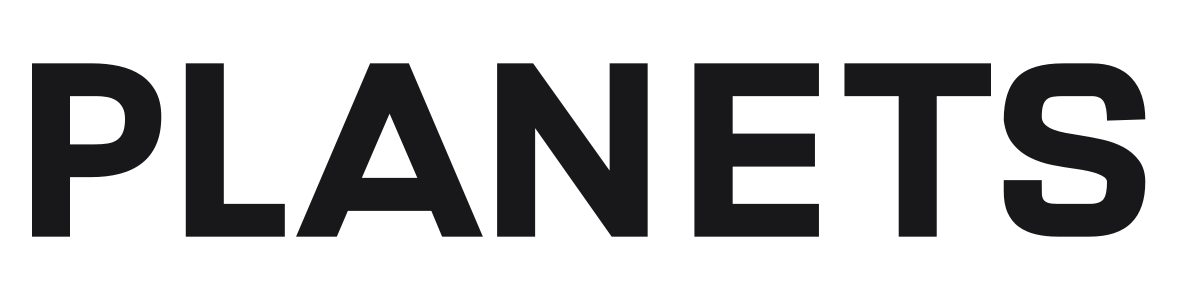
Planets
Planets is a bold grotesque sans-serif with heavy weight and wide, even proportions. Its near-monoweight strokes and squared curves give it a confident, no-nonsense presence that holds up well at large display sizes. A strong candidate for headlines, posters, and brand identity work that needs weight without fuss.